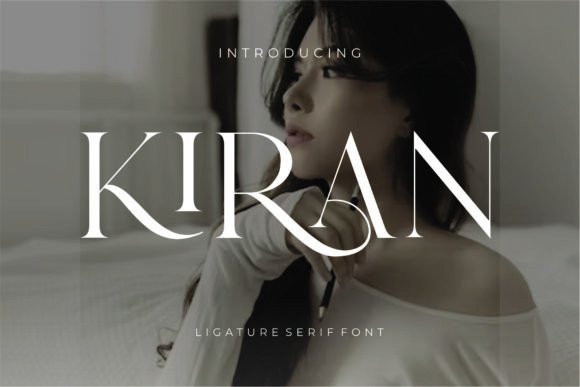
Introducing the Kiran Font, the ultimate serif font that will elevate your designs to new heights! Created by dylla studio, this font is the epitome of elegance and sophistication, making it the perfect choice for all your design needs.
With its minimalist logo-inspired design, Kiran Font is a versatile font that can be used in a variety of projects. Whether you're designing templates, brochures, videos, or advertising branding, this font will add a touch of class and professionalism to your work.
One of the standout features of Kiran Font is its ligatures. These unique and stylish letter combinations add a sense of flair and creativity to your designs, making them truly eye-catching and memorable. With Kiran Font, your designs will stand out from the crowd and leave a lasting impression on your audience.
But that's not all! Kiran Font also offers PUA encoded characters, meaning that you can access all its features without the need for additional design software. It's the perfect font for both beginners and experienced designers alike.
And let's not forget about the multilingual support. Kiran Font is designed to be inclusive and accessible, with support for multiple languages. No matter where you are in the world, you can use Kiran Font to create stunning designs that speak to your audience.